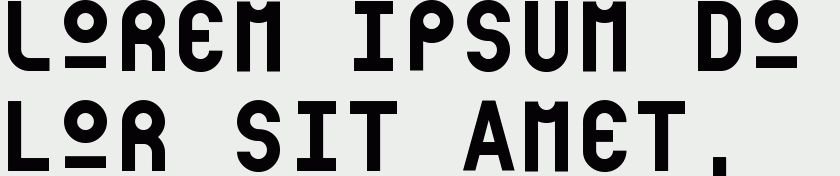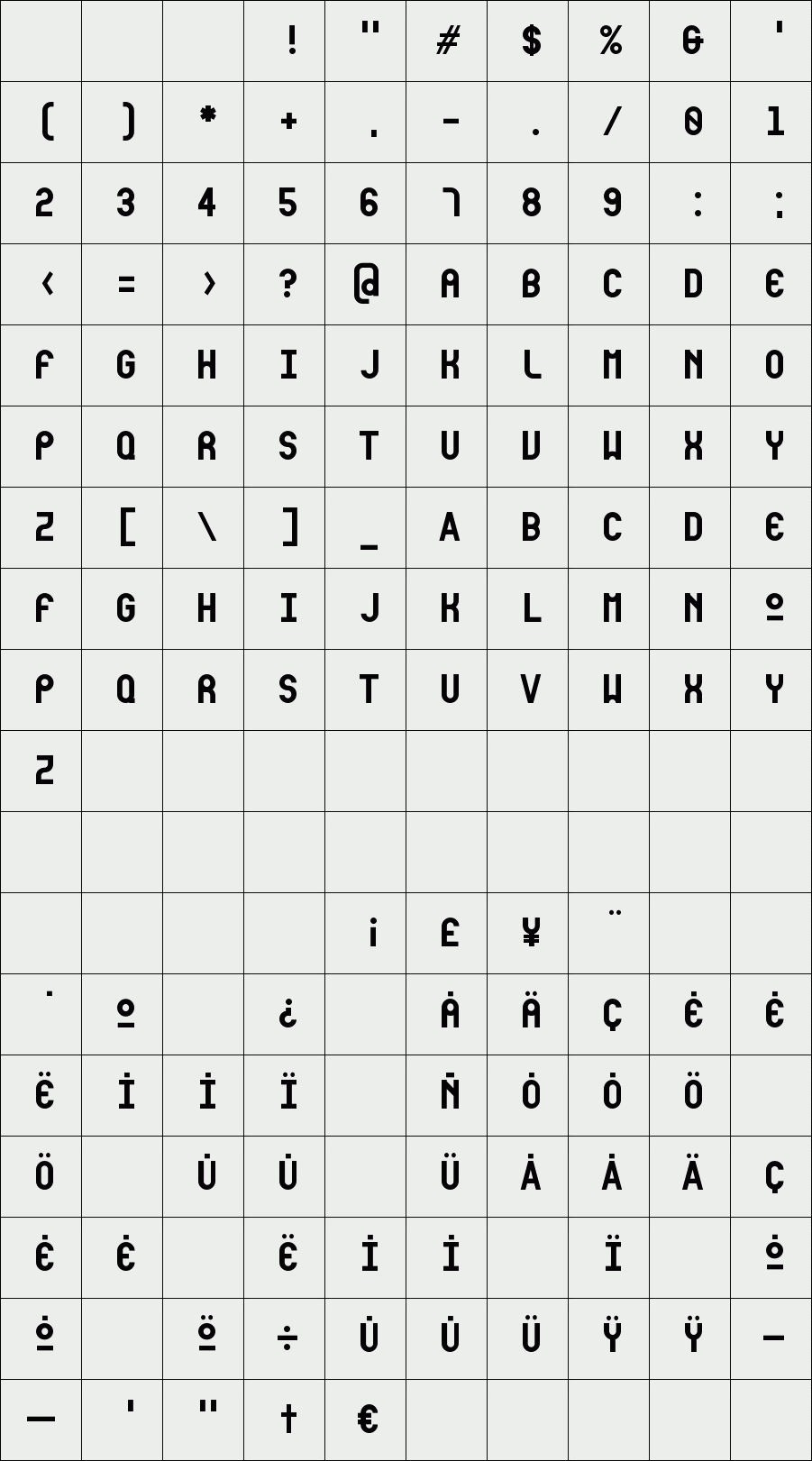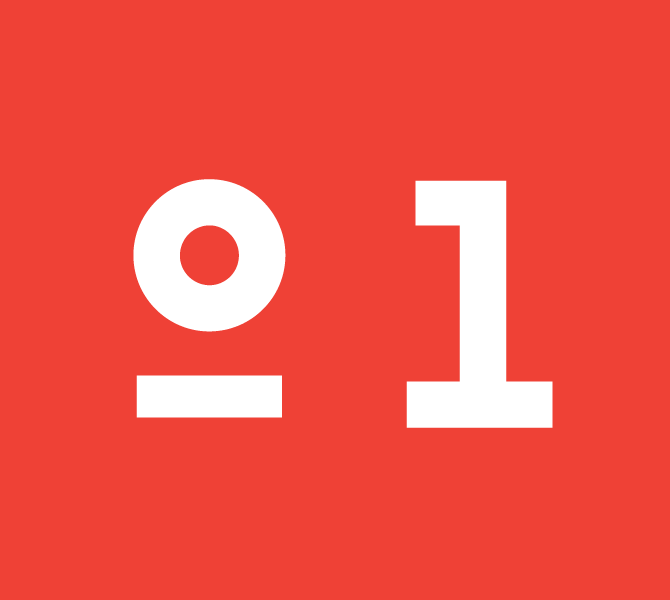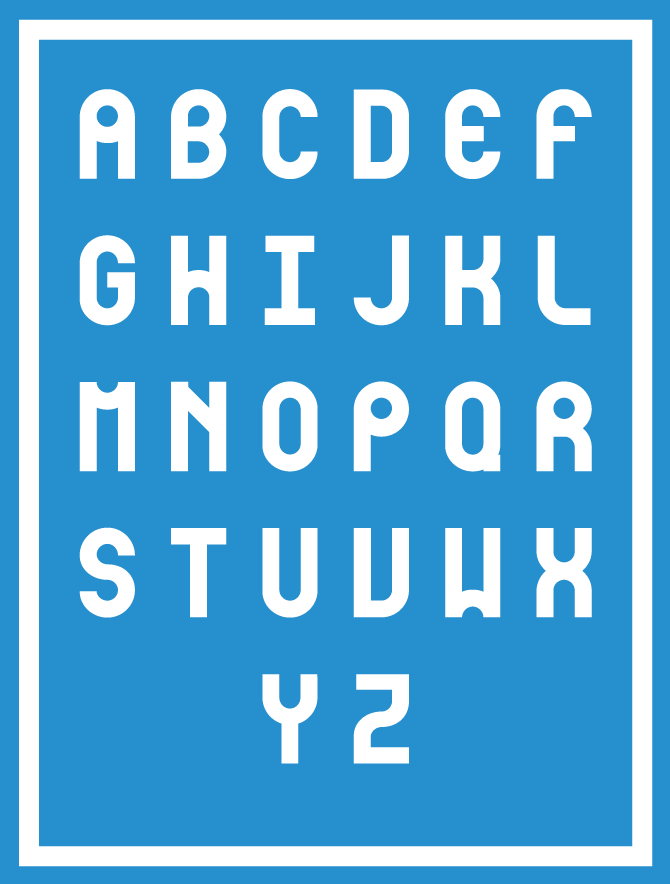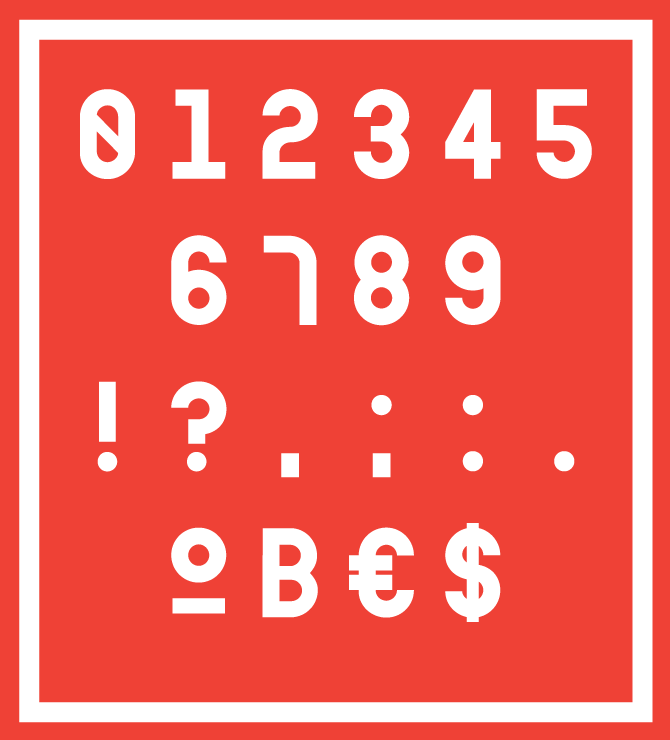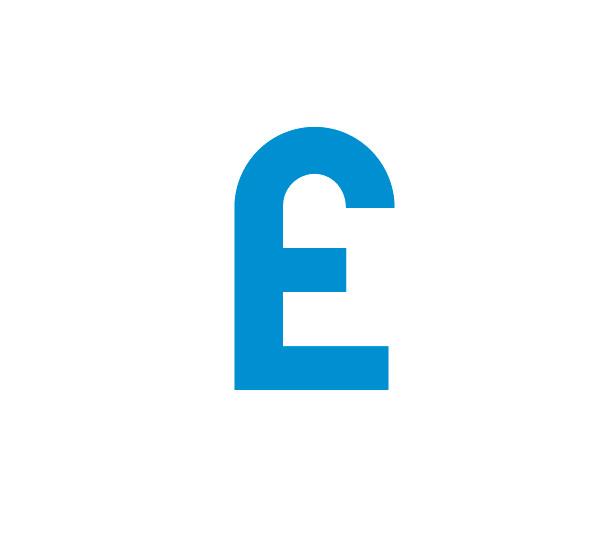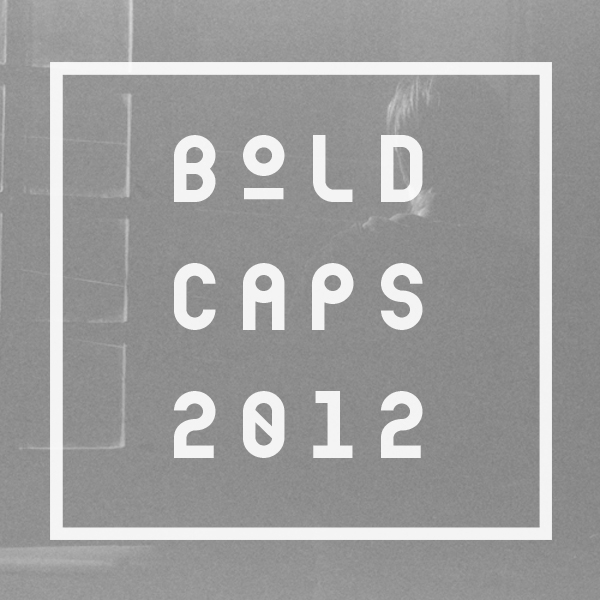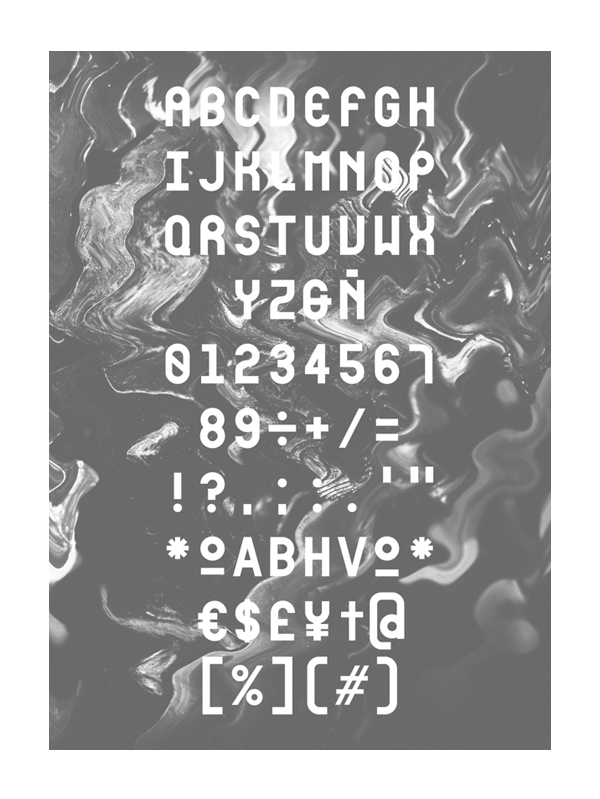
Modula Mono
Modula Mono is a monospaced display font based on simple geometric modules, Designed for titling, identity and editorial use. Caps only, plus number set, symbols and punctuation.